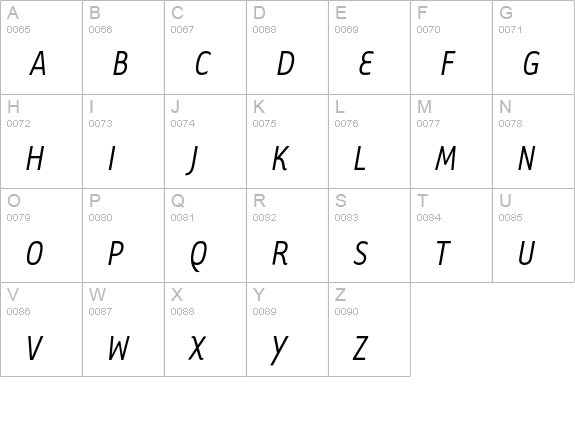
TarzanaNarrowItalic Font Details
TarzanaNarrowItalic is a stunning and elegant font that adds a touch of sophistication to any design project. The narrow and italicized letterforms exude a sense of refinement and style, making it perfect for logos, branding materials, and editorial designs. This font boasts a unique combination of sleek curves and sharp angles, creating a visually pleasing contrast that catches the eye. The narrow width adds a modern and contemporary feel to the overall design, making it ideal for projects that require a sleek and minimalistic look. TarzanaNarrowItalic is not only visually captivating but also highly versatile. Its clean and legible letterforms ensure that your message is conveyed with clarity and professionalism, while the italicized style adds a touch of elegance and sophistication. One of the best things about TarzanaNarrowItalic is that it is available for free download at FontsMarket.com. This means that you can easily access and use this font in your design projects without any cost or hassle. Whether you are a professional designer or just starting out, this font is a valuable addition to your font collection. So, if you are looking for a font that combines modernity, elegance, and versatility, look no further than TarzanaNarrowItalic. Download it for free at FontsMarket.com and elevate your designs to a whole new level.